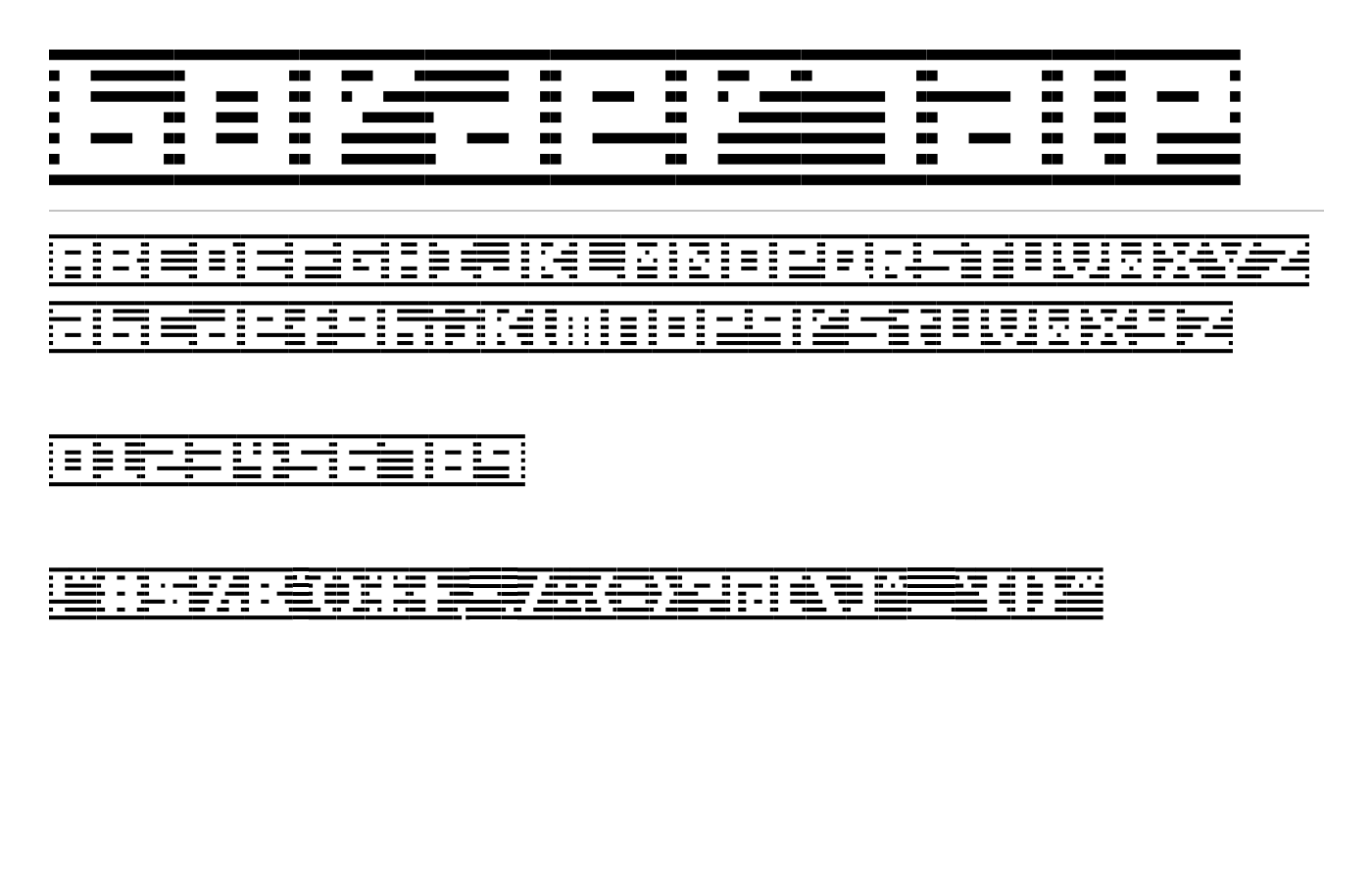
Border7alp is a unique, experimental sans serif font characterized by its highly geometric and modular design, composed entirely of segmented horizontal and vertical lines. With a monospaced feel and uniform stroke weight, it delivers a futuristic and digital aesthetic that feels technical and abstract. This font works best in creative tech branding, digital art posters, or projects needing a striking, unconventional look that instantly grabs attention.
border7alp Font